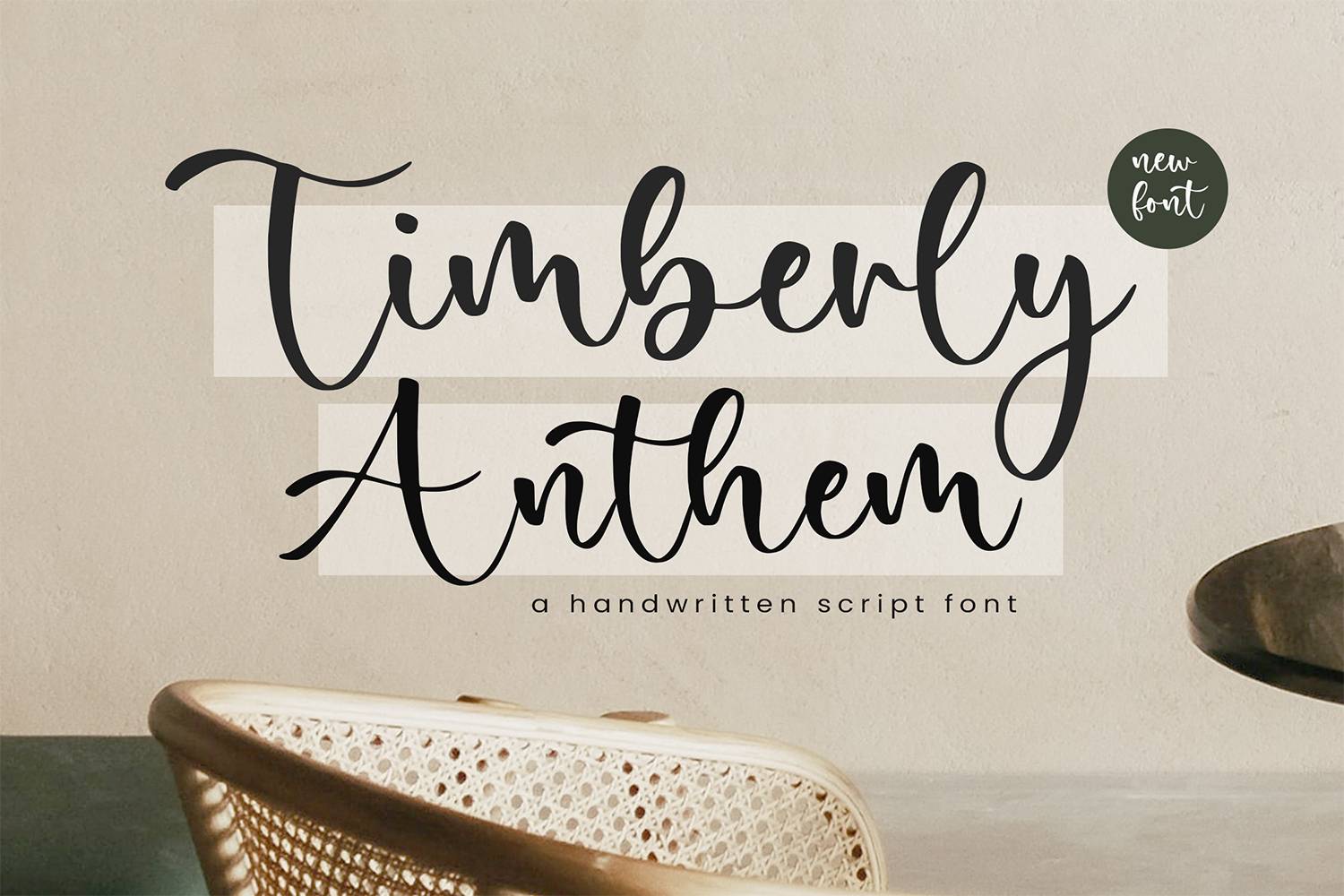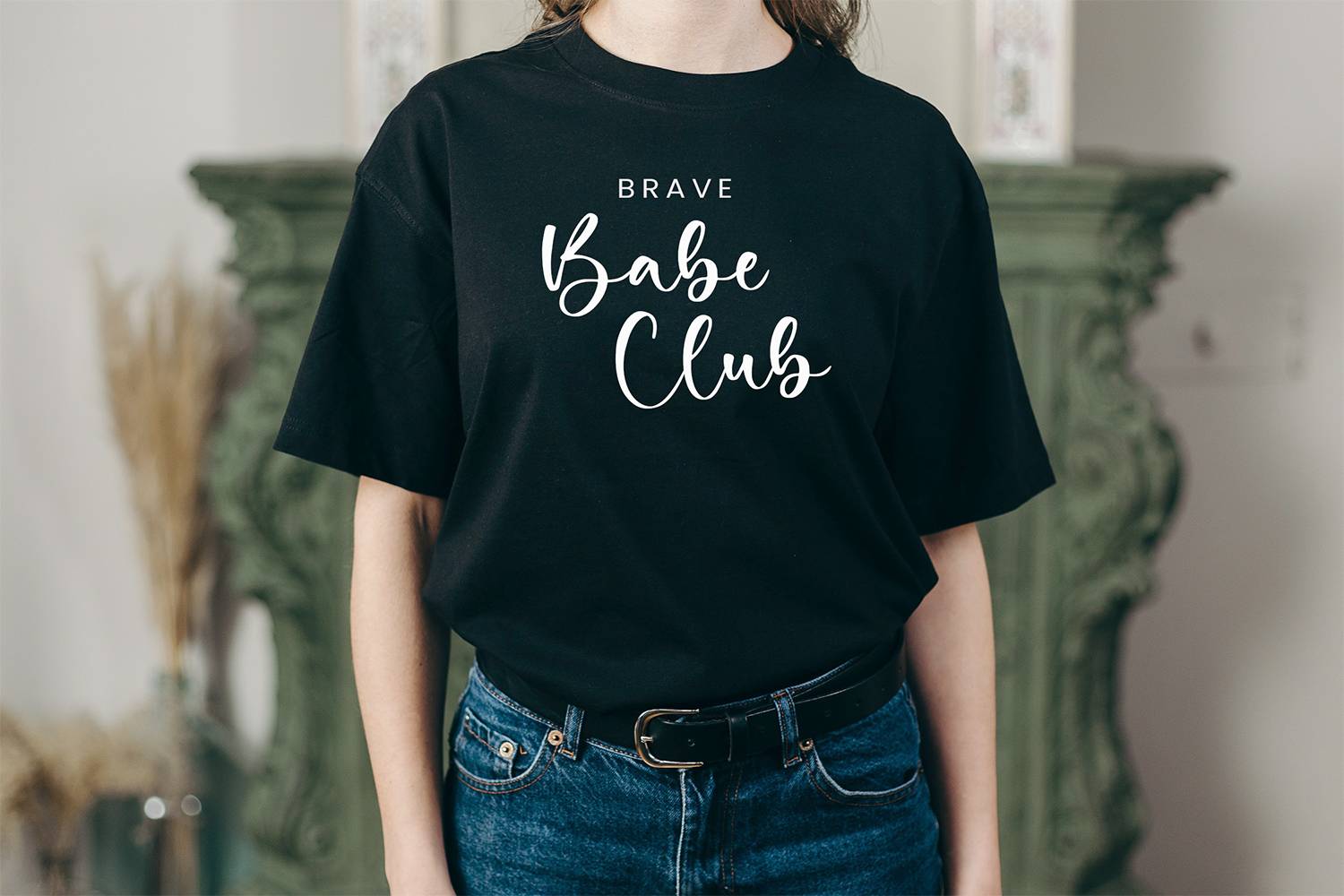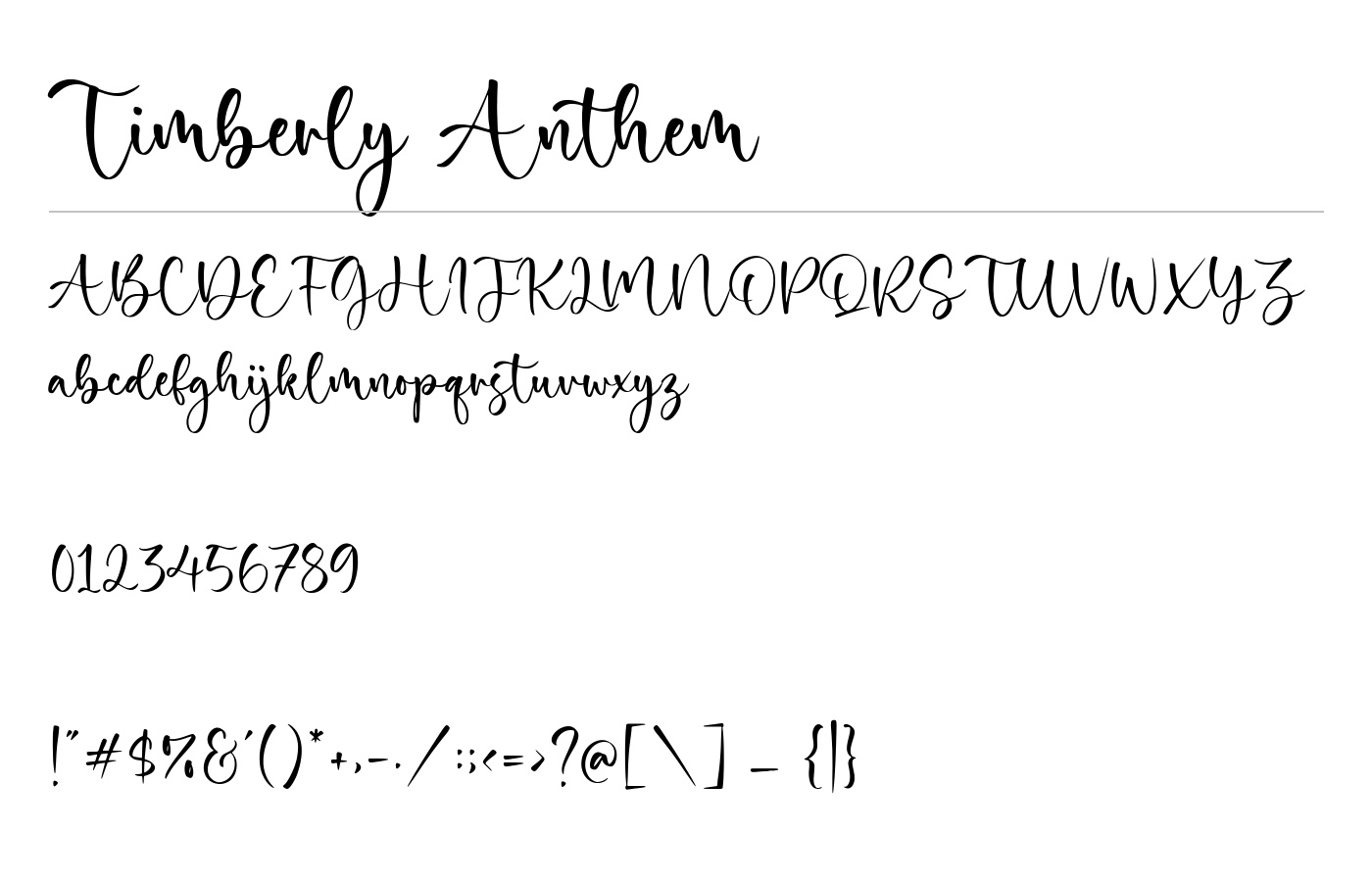
Timberly Anthem is an elegant, handwritten script font with a delicate and flowing style that combines both thin and moderately bold strokes, creating a charming and personal feel. Its tall x-height and playful letterforms with looped ascenders and descenders make it perfect for invitations, branding, and creative projects that want to convey warmth, friendliness, and sophistication. This font shines in contexts where a handcrafted, approachable look is desired, such as wedding stationery, lifestyle blogs, and boutique packaging.
Timberly Anthem Font
About Timberly Anthem Font